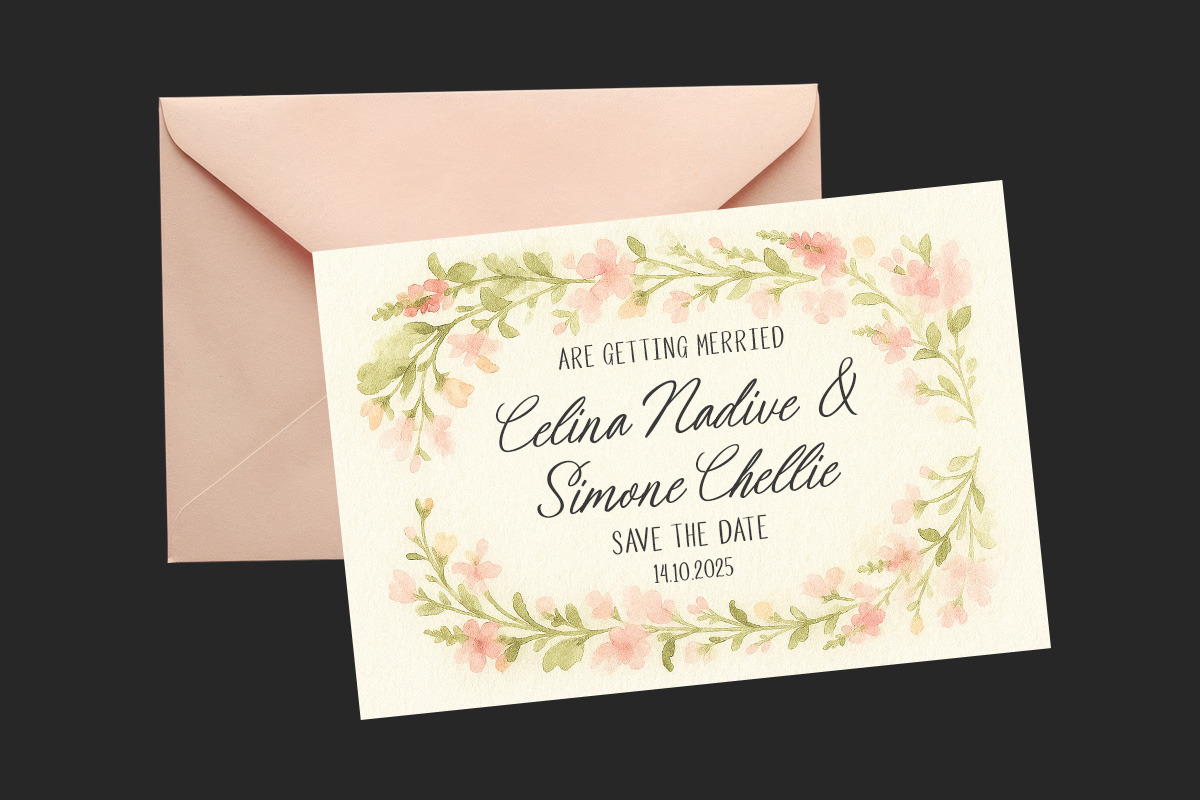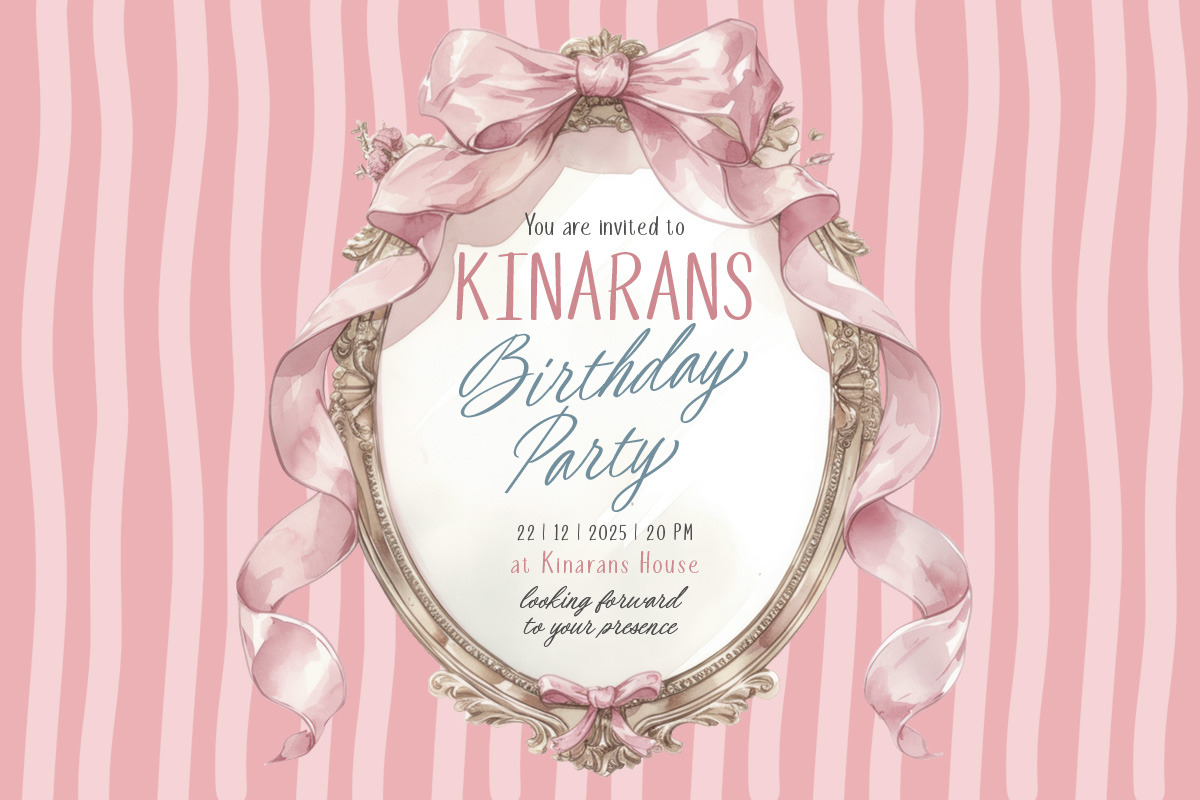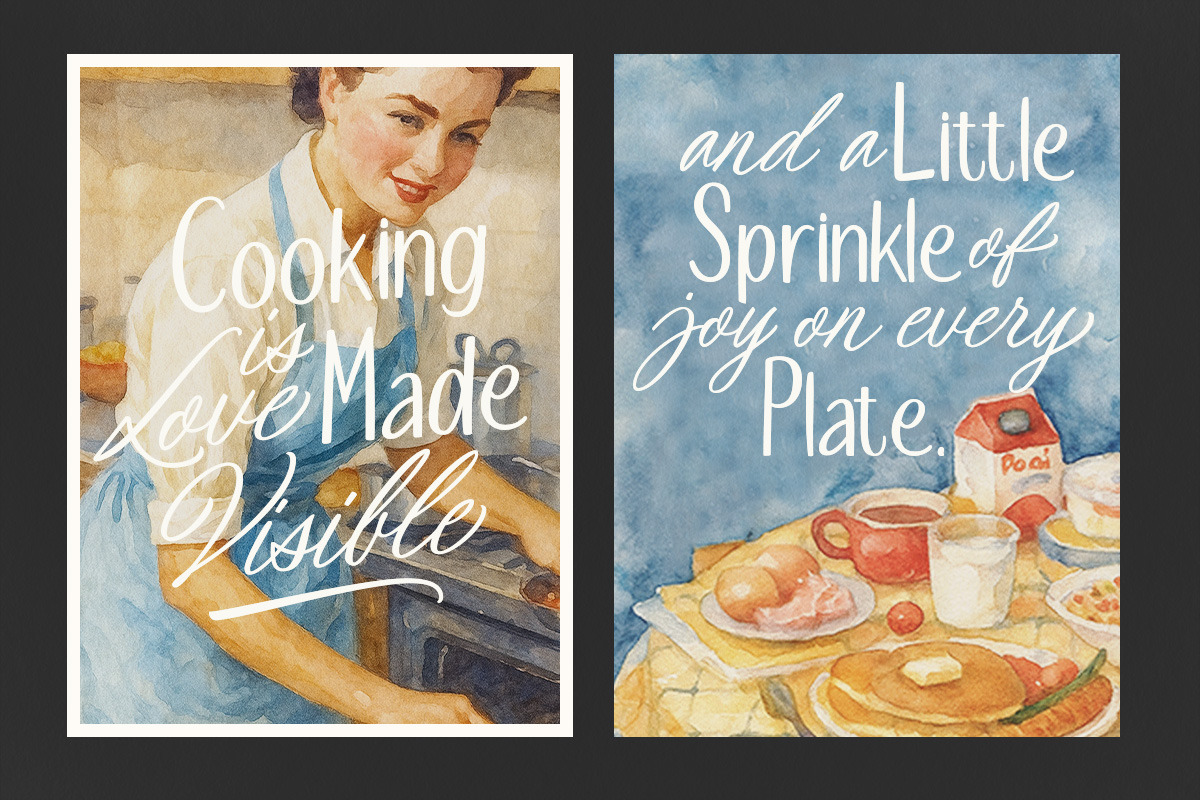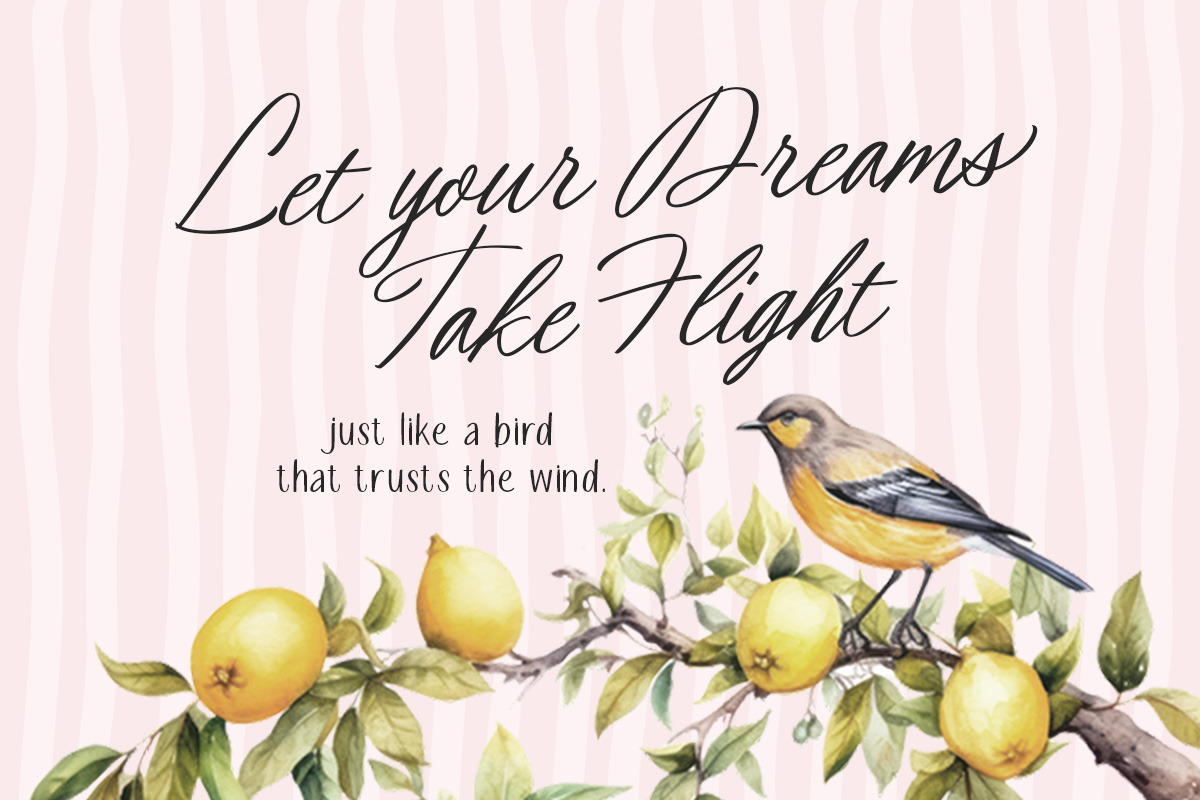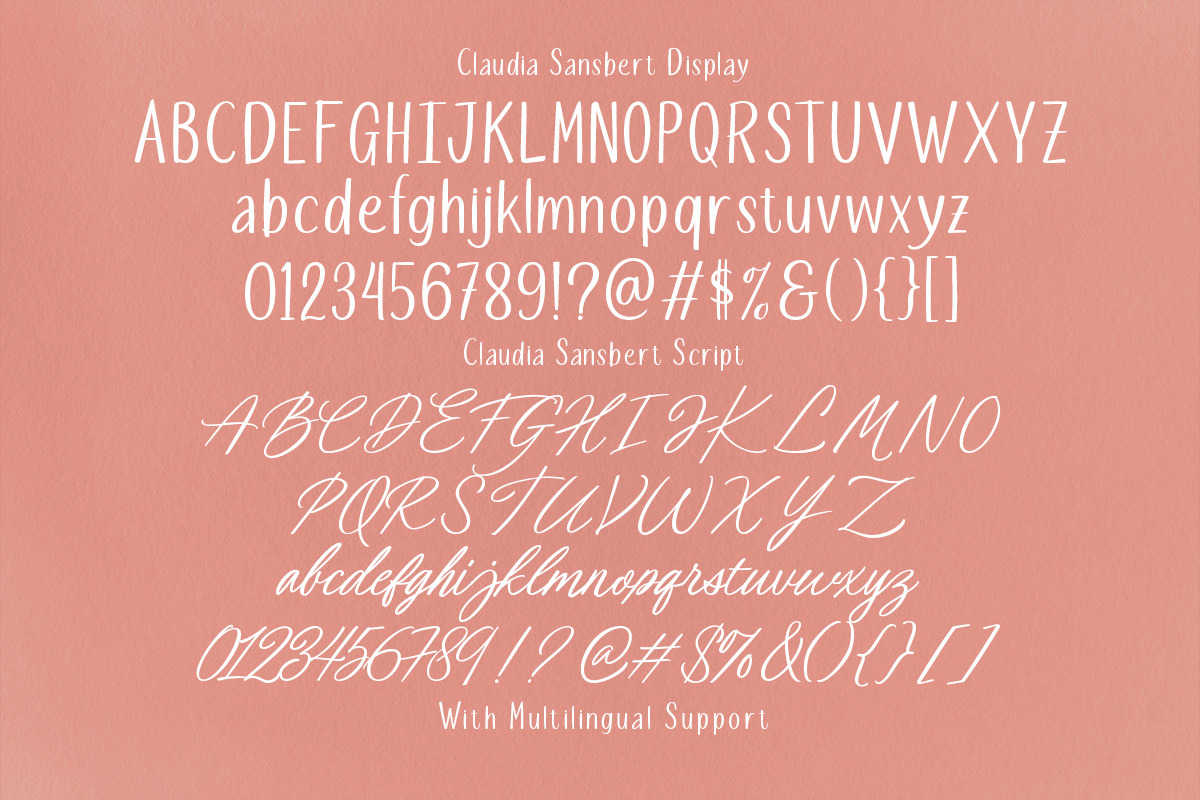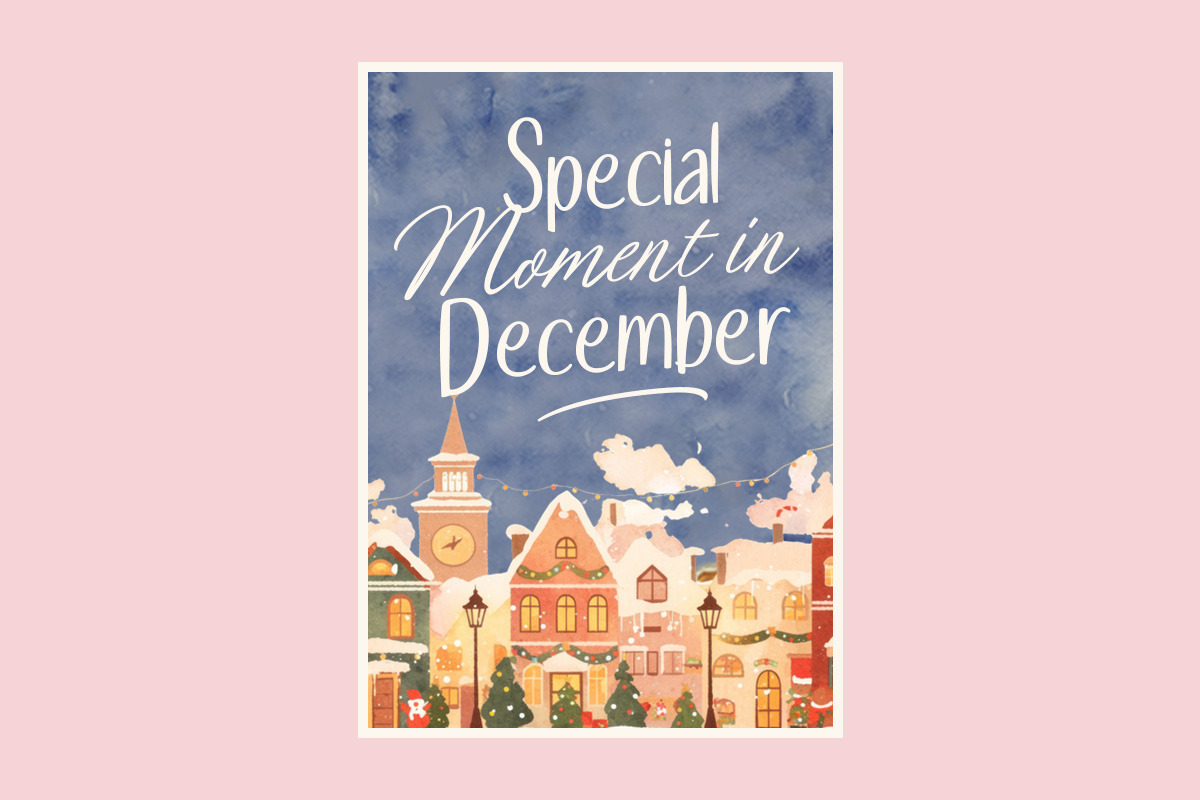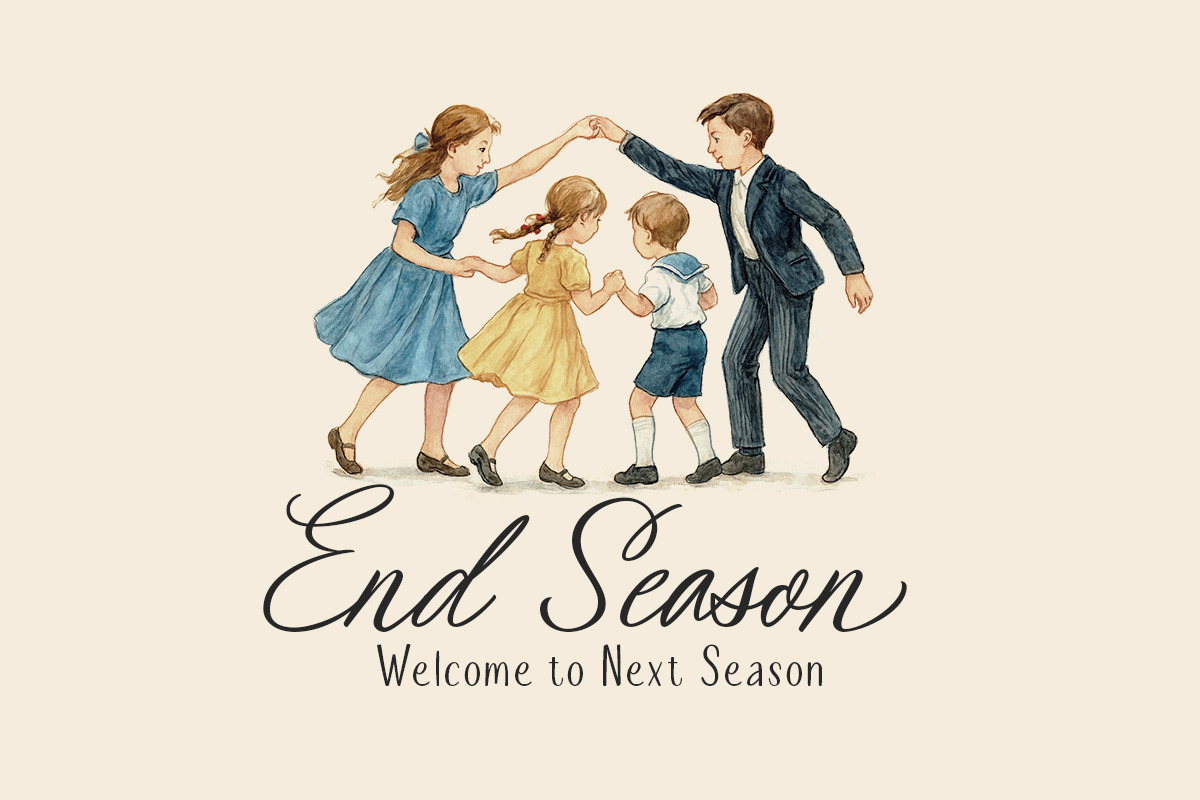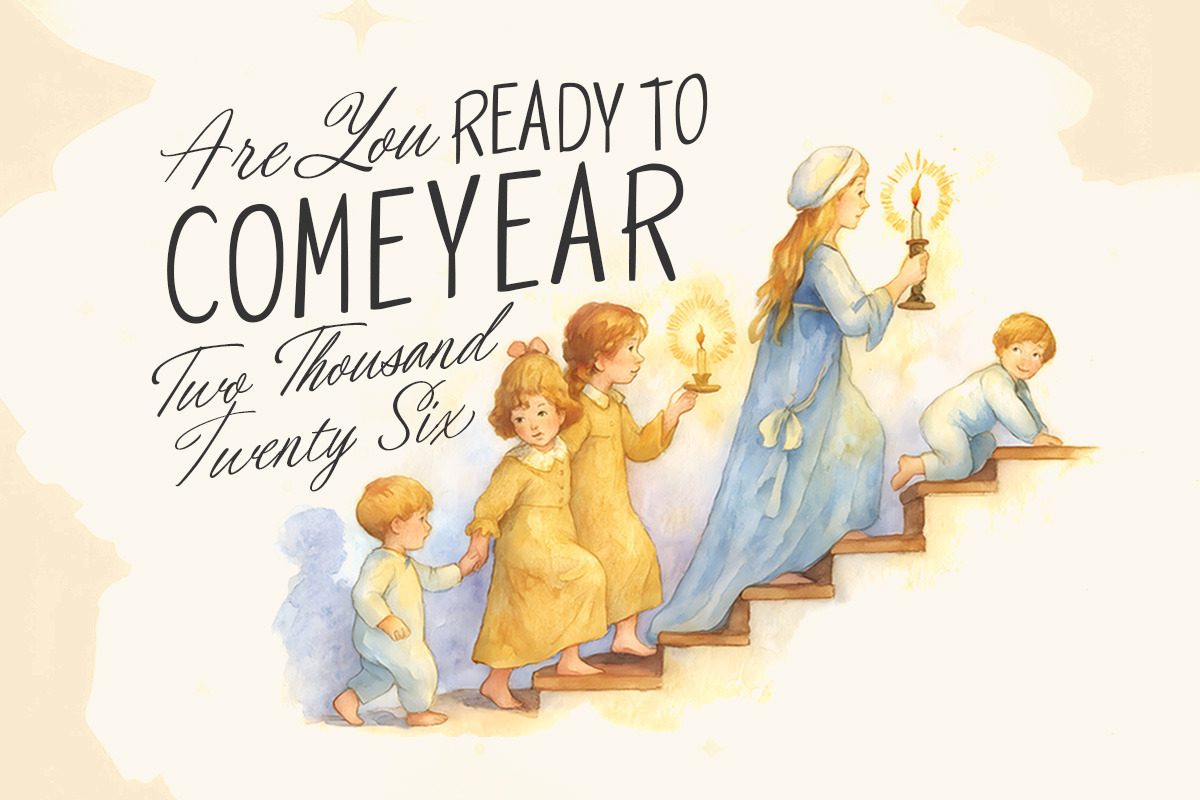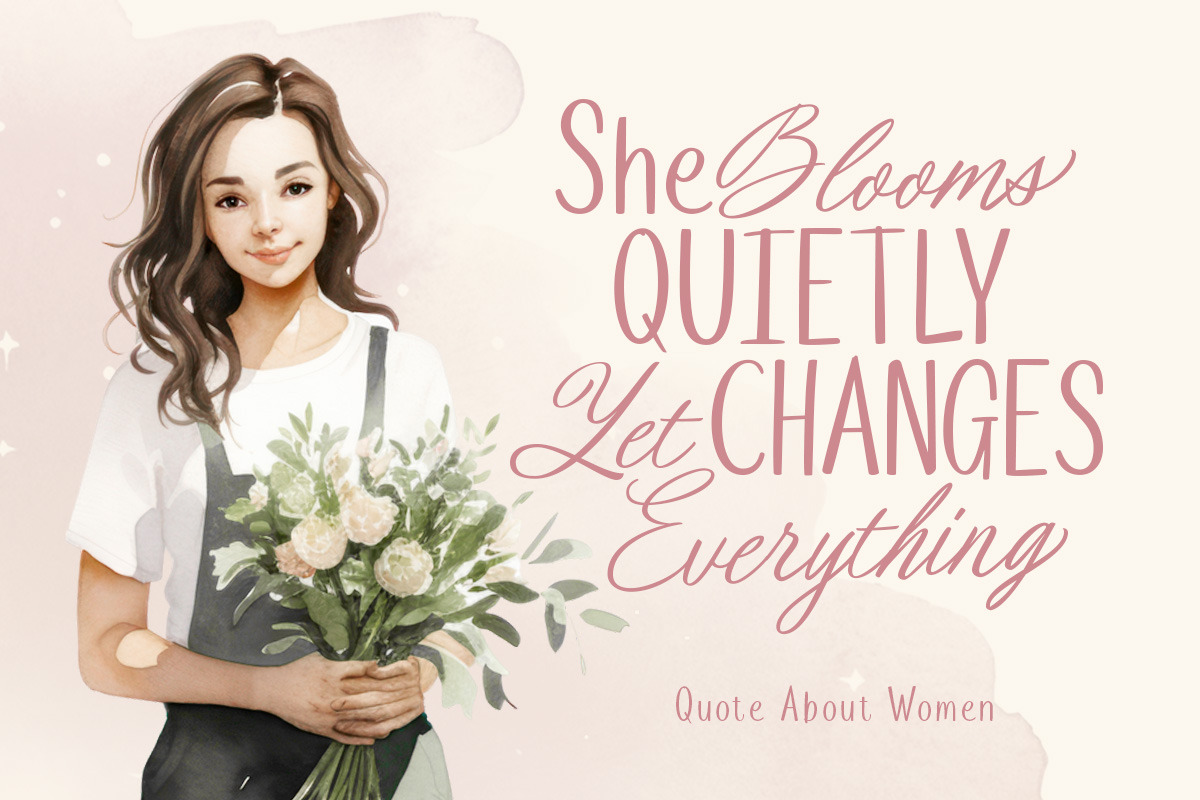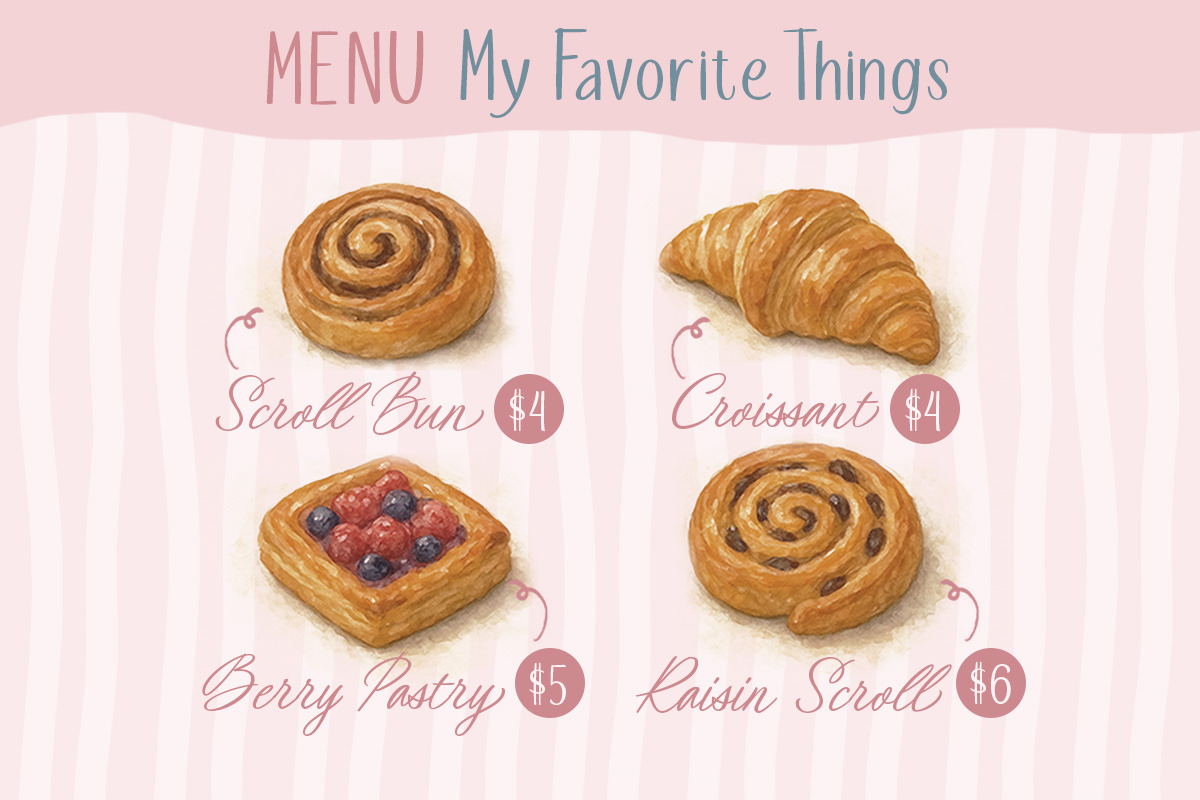
Claudia Sansbert Wedding Handwritten
Claudia Sansbert is a charming handwritten duo font that blends soft sans-serif simplicity with elegant script flow. Its friendly, modern strokes create a warm and approachable aesthetic, ideal for invitations, branding, packaging, and lifestyle-themed designs. The pairing offers balance—clean readability from the sans part and graceful personality from the script—making it versatile for projects seeking a delicate, feminine, and heartfelt touch. Features : - Uppercase & lowercase - Numbers and punctuation - Alternates & Ligatures - Multilingual Support - PUA encoded Not sure if our font is right for your project? You can try it first with our "Type Tester" on the website, where you can preview all glyphs and special characters before buying. Check out this quick guide: www.letterhend.com/blog/using-alternate-character-in-type-taster/ If you encounter any technical issues, please refer to our QUICK HELP, available at this link: For feedback and any other question, please contact our support team at For business collaboration inquiries, please contact us at . We'll be happy to help you!